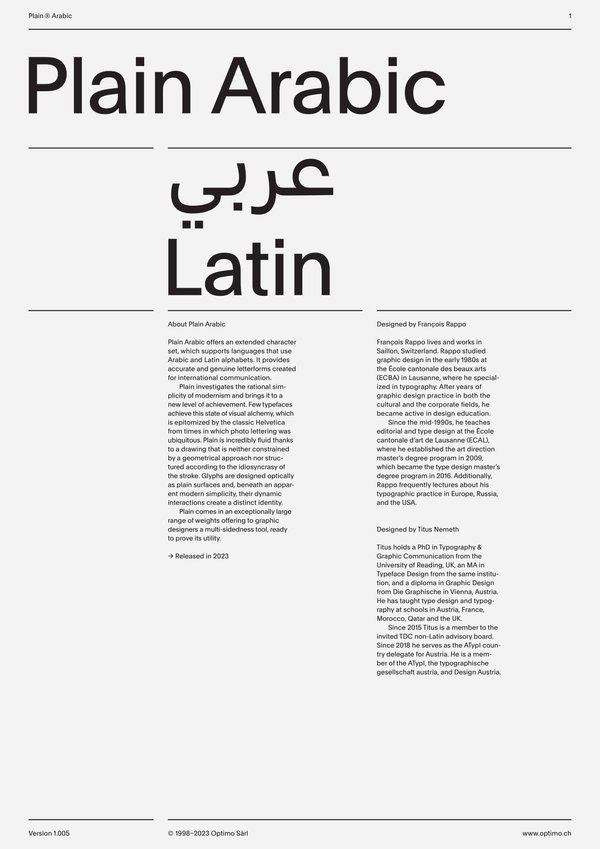
Plain Arabic
Arabic Language Feature
Arabic Language Feature [locl=ar]
Setting the language of a text to Arabic ascertains that the correct form of the letter‭ ‬ه‭ ‬is chosen in various contexts‭.‬
Arabic Contextual Alternates
Contextual alternates‭ ‬‭[‬calt‭]‬
Improved spacing forms in specific contexts‭.‬
Persian Figures
Farsi Language Feature [locl=fa]
Setting the language of a text to Persian activates the form of zero that is preferred in Iran‭.‬
Urdu Figures
Urdu Language Feature [locl=ur]
Setting the language of a text to Urdu activates forms four and seven preferred in Urdu‭.‬
Arabic Tabular Figures
Tabular Lining Figures [tnum]
Arabic Language Feature [locl=ar]
For contexts in which numbers need to line up such as columns or tables‭,‬ the tabular setting is perfectly adapted as all numerals width is uniformized‭.‬ Proportional setting generates numerals suitable for text‭; ‬each number has an appropriate width based on its shape‭.‬
Persian Tabular Figures
Tabular Lining Figures [tnum]
Farsi Language Feature [locl=fa]
For contexts in which numbers need to line up such as columns or tables‭,‬ the tabular setting is perfectly adapted as all numerals width is uniformized‭.‬ Proportional setting generates numerals suitable for text‭; ‬each number has an appropriate width based on its shape‭.‬
Urdu Tabular Figures
Tabular Lining Figures [tnum]
Urdu Language Feature [locl=ur]
For contexts in which numbers need to line up such as columns or tables‭,‬ the tabular setting is perfectly adapted as all numerals width is uniformized‭.‬ Proportional setting generates numerals suitable for text‭; ‬each number has an appropriate width based on its shape‭.‬
Case Sensitive Forms
All Caps [cpsp]
Case Sensitive Forms [case]
This function formats the text in uppercase and adjusts spacing between all capital letters. It also applies the ‘Case Sensitive Forms’ feature which replaces certain characters with alternates that are better suited for all capital text, especially related to punctuation.
Contextual Alternates
Contextual Alternates [calt]
This feature adapts the position of a glyph after its surrounding context. For instance, a dash placed between two uppercase letters or numbers will be replaced by an uppercase version of the dash, slightly higher. This feature is usually active by default in Adobe applications.
Tabular Lining Figures
Tabular Lining Figures [tnum–lnum]
Based on the proportions of the capitals, lining figures have an invariable height. With the combination of the tabular spacing format, the width of each numeral is uniformized. This feature is useful when numerals need to all lined up. It facilitates the reading of numbers set within columns or tables. As some applications don’t have access to this feature, proportional figures are set as the default choice.
Proportional Oldstyle Figures
Proportional Oldstyle Figures [pnum–onum]
Based on the design of the lowercase, oldstyle figures have varying ascenders and descenders. Like most of the letters, each number has an appropriate width based on its shape. The combination of oldstyle figures with proportional setting generate numerals perfectly adapted for text.
Tabular Oldstyle Figures
Tabular Oldstyle Figures [tnum–onum]
Based on the design of the lowercase, oldstyle figures have varying ascenders and descenders. With the combination of the tabular spacing format, the width of each numeral is uniformized. This feature is useful when numerals need to all lined up. It facilitates the reading of numbers set within columns or tables.
Fractions
With this feature, any numbers separated by a slash will automatically turn into a fraction. To fit in fraction configuration, numerals have been designed smaller and their weights have been adjusted to suit the typeface.
Lowercase math symbols
Stylistic Set 6 [ss06]
This feature activates alternate lowercase positioning of mathematical symbols.
This feature replaces any letter following a numeral with its matching superior letters. French language uses the ordinal indicators such as ‘er’ for 1er premier, while Spanish, Portuguese and Italian require the feminine and masculine ordinals ‘a,’ ‘o’ for 1º, 1ª. Ordinals are designed to match the weight of the typeface.
Plain is the accomplishment of years of research by François Rappo, whose Theinhardt family had set a milestone in revivalist Grotesque typeface design. Plain comes in an exceptionally large‭ ‬range of weights offering to graphic‭ ‬designers a multi-sidedness tool‭, ‬ready to prove its utility‭.‬
Plain Arabic is designed by Titus Nemeth under the supervision of Francois Rappo. It offers an extended character‭ ‬set‭, ‬which supports languages that use Arabic and Latin alphabets‭. ‬It provides‭ ‬accurate and genuine letterforms created‭ ‬for international communication‭.‬